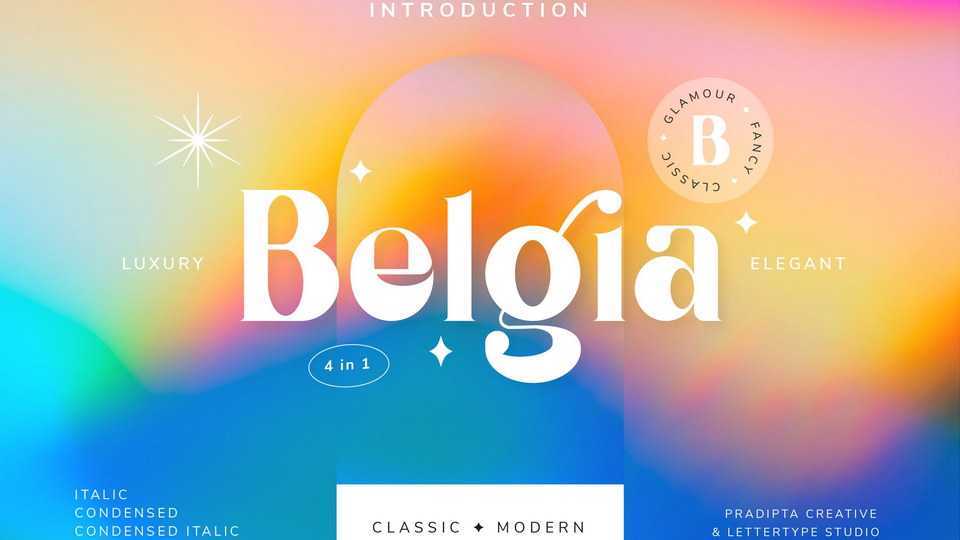
Download Belgia font, a classic, glamour and fancy typeface. Belgia is a mix of serif font with modern and classic styles, which will help your project to be more luxury and elegant.
Designer: Pradipta Creative